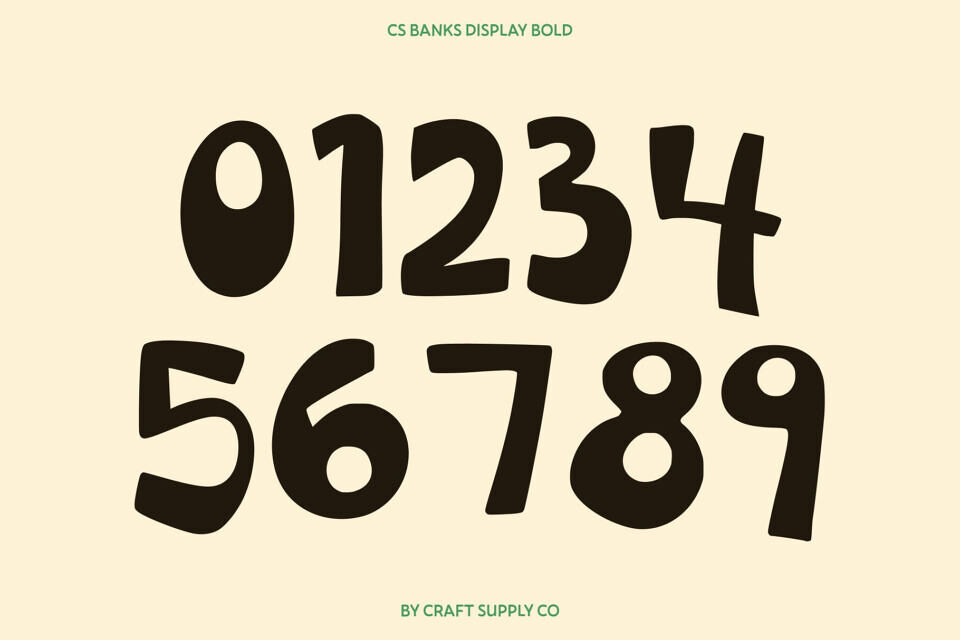
Banks is a fun hand-drawn display created with bold strokes, geometric and charming, friendly forms that instantly brighten up any design. Its lively shapes and spontaneous drawing style give it a youthful, energetic vibe that feels natural, expressive, and full of character.
This font thrives in youthful, upbeat branding projects that aim to feel vibrant and approachable. Its bold, hand-drawn aesthetic makes it perfect for lifestyle brands, kid-focused products, casual businesses, or anything that celebrates fun and creativity. Whether used in logos, product labels, or tagline designs, instantly sets a cheerful tone.